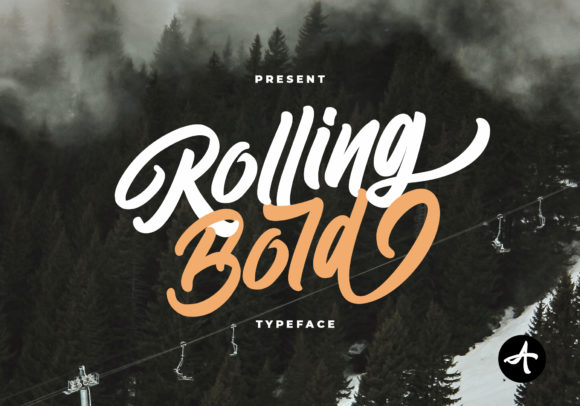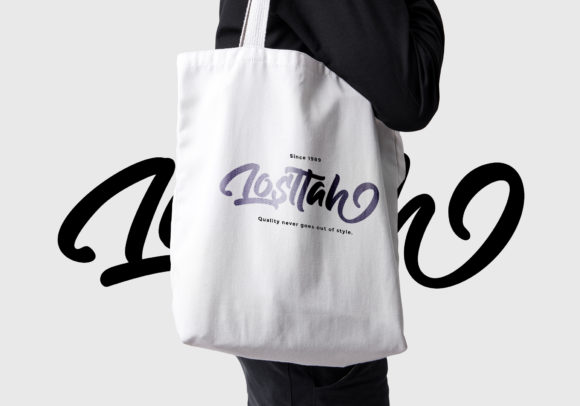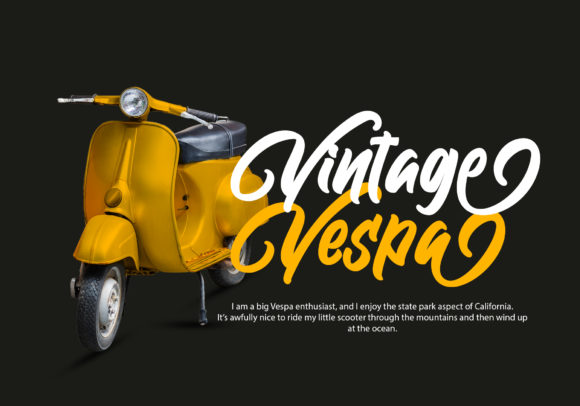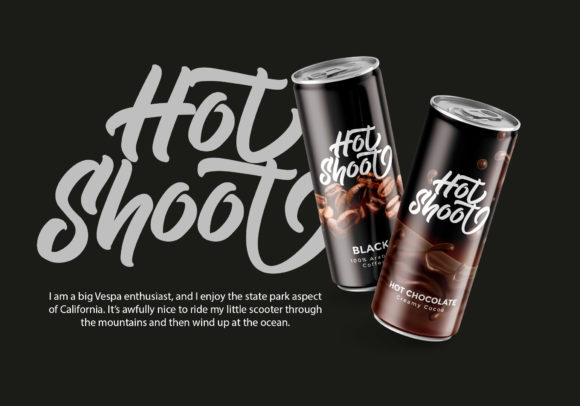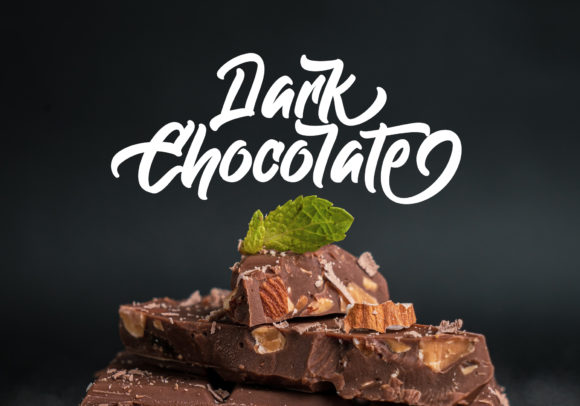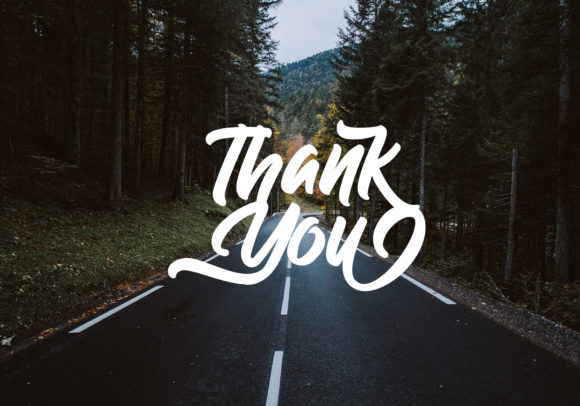
Rolling Bold Font
About Rolling Bold Font
Rolling Bold is a contemporary script font that adds a touch of modernity and attractiveness to your designs. Its sleek and bold letterforms make a strong visual impact, making it a great choice for various design projects. With its user-friendly design, using Rolling Bold will save you time and effort in your design process.
One of the notable features of Rolling Bold is its extensive set of OpenType features. These include ligatures and alternates, which provide you with even more design options and possibilities. Ligatures help create seamless connections between letters, giving your text a smooth and cohesive appearance. Alternates offer variations of certain characters, allowing you to add variety and uniqueness to your designs.
The versatility of Rolling Bold makes it suitable for a wide range of applications. It works well as a logo font, giving your brand identity a modern and stylish look. Whether you’re designing a logo for a startup, a fashion brand, or a creative agency, Rolling Bold can help you create a visually striking and memorable mark.
Posters and packaging designs also benefit from the bold and eye-catching nature of Rolling Bold. Its strong presence on these mediums grabs attention and makes your message or product stand out. Merchandise items like t-shirts, mugs, and tote bags can also be enhanced with the stylish appeal of Rolling Bold.
In the realm of digital marketing, Rolling Bold shines on social media graphics. Whether you’re creating posts, stories, or banners, this font will give your visual content a modern and captivating vibe. Rolling Bold is also well-suited for greeting cards, adding a contemporary touch to heartfelt messages and well wishes.
With Rolling Bold, you have a versatile and time-saving font that elevates your designs with its modern script style. Whether it’s logos, posters, packaging, merchandise, social media, or greeting cards, Rolling Bold is ready to enhance your projects and make them more attractive.